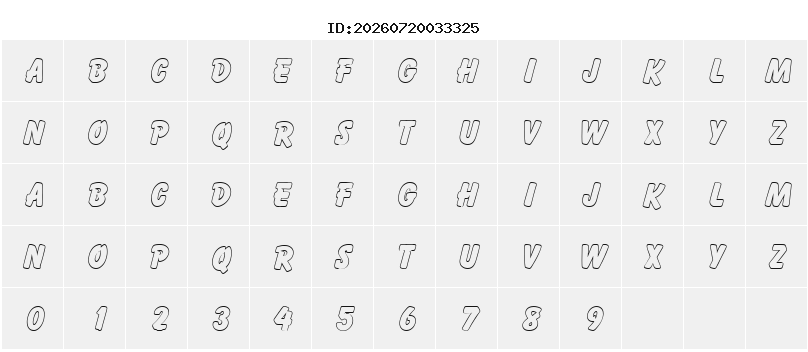
ElizabethBeckerOutline Preview
• Font Name: ElizabethBeckerOutline
• Font Style: ExtraBold
About ElizabethBeckerOutline.ttf
ElizabethBeckerOutline.ttf is a modern, elegant sans-serif font designed for ultimate readability and visual harmony. Perfect for branding, headlines, web design, and print materials.